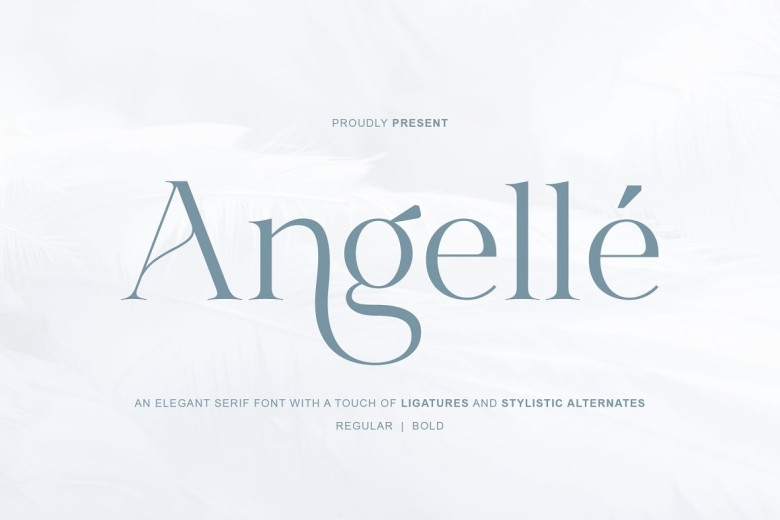
Angelle Font
Angelle is a serif font. There are two fonts within: Regular and Bold. In addition, there is Ligature Support and Stylistic Alternatives included with this font family – making Angelle an elegant, luxurious and delicate font choice.
Angelle Serif Font